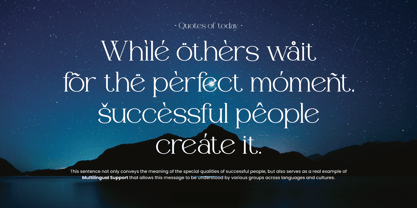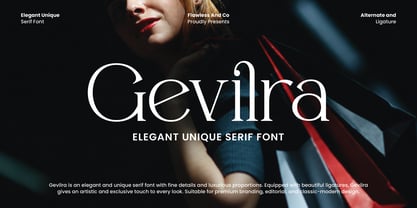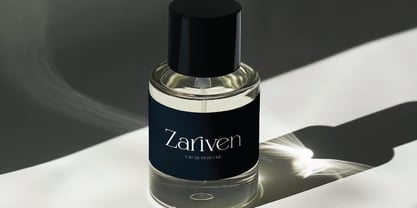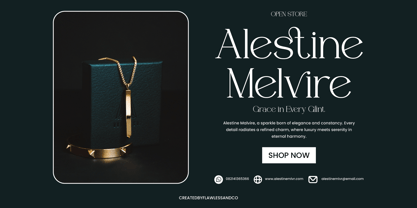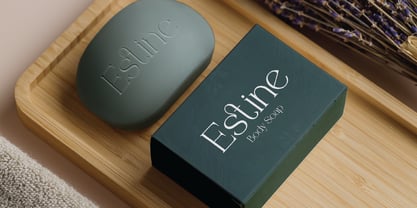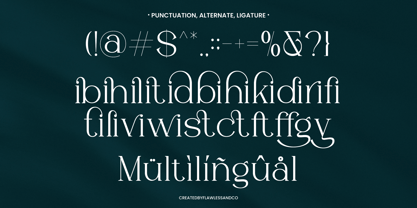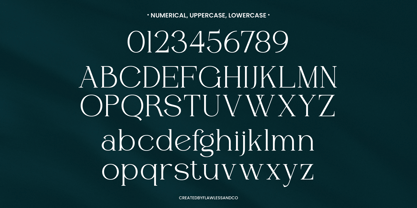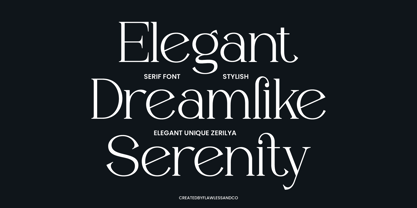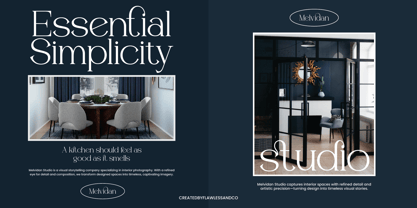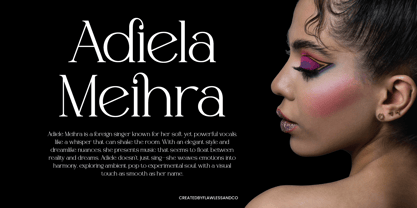
Gevilra
La familia tipográfica Gevilra fue diseñada por Achmad Yani y publicada por Flawlessandco. Gevilra contiene 1 estilos. Más información sobre esta familia
Gevilra is an elegant and unique serif font with fine curves and a refined aesthetic. Featuring graceful ligatures and stylish alternates, Gevilra brings a sophisticated and contemporary charm to any project.
Features :
Multilingual, Uppercase alphabet A-Z, Lowercase alphabet a-z, Numbers 0-9, Some punctuation, Alternates & Ligatures